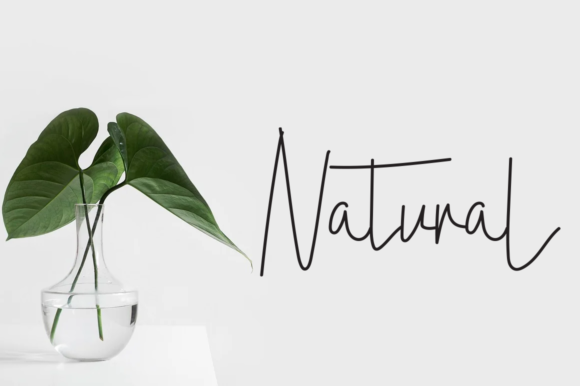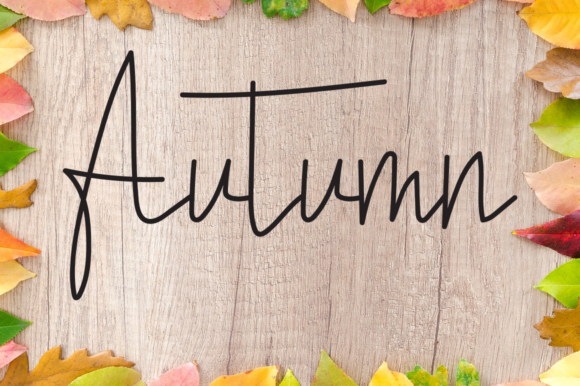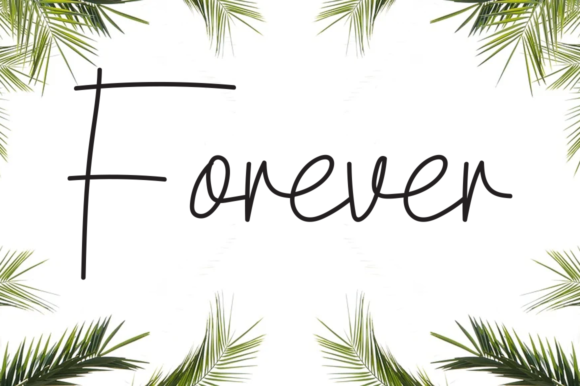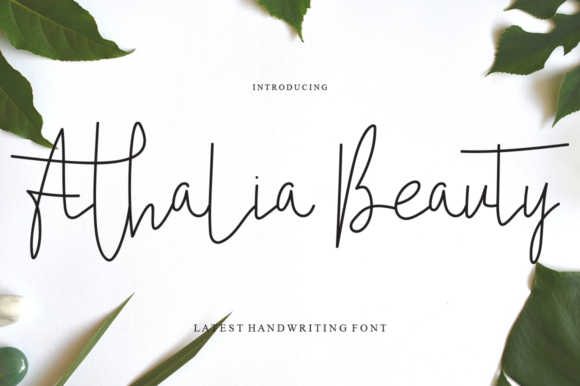
Introduction to Athalia Beauty Font
Athalia Beauty is a dainty, thin and cursive handwritten font.
This gentle font will look gorgeous on a variety of design ideas It will add a joyful and romantic touch to each of your projects.
Key Features of Athalia Beauty Font
Why Choose Athalia Beauty Font?
Athalia Beauty Font offers exceptional quality and versatility, making it a valuable addition to your design toolkit. Whether you’re creating for personal projects or commercial use, Athalia Beauty Font delivers professional results.